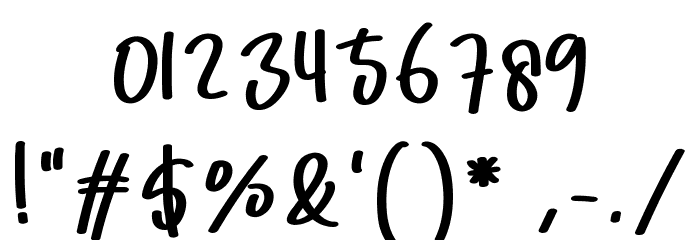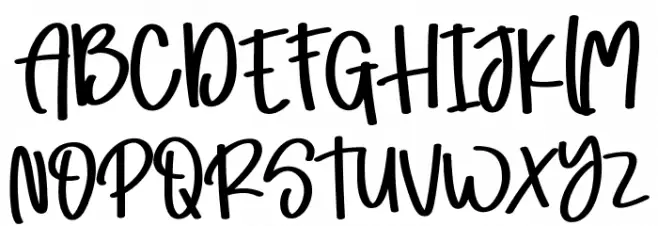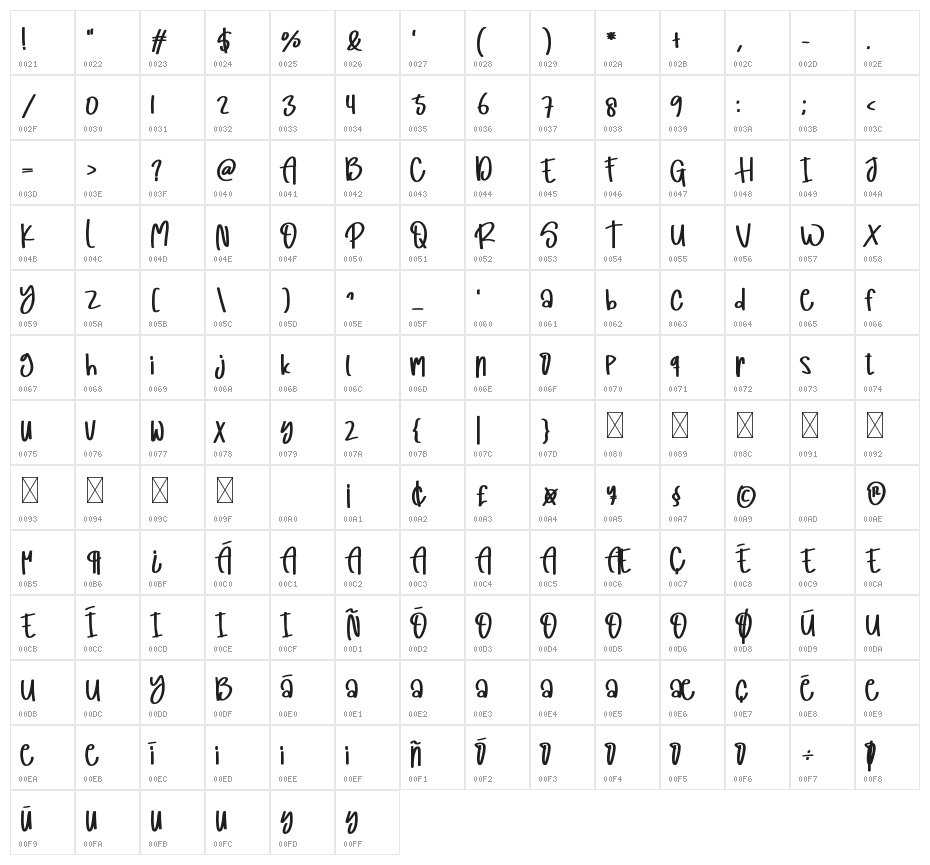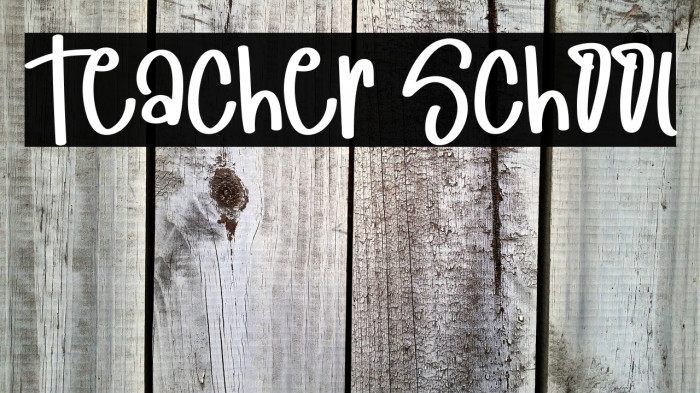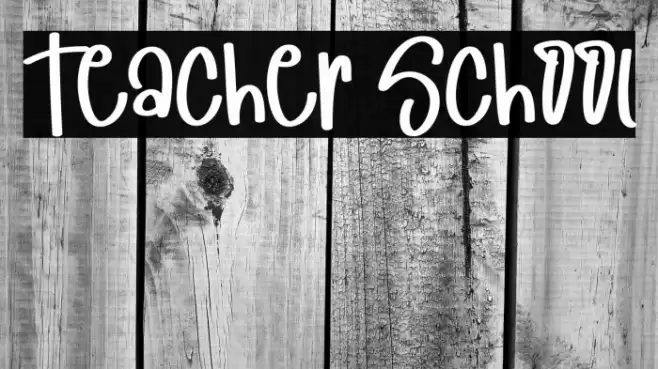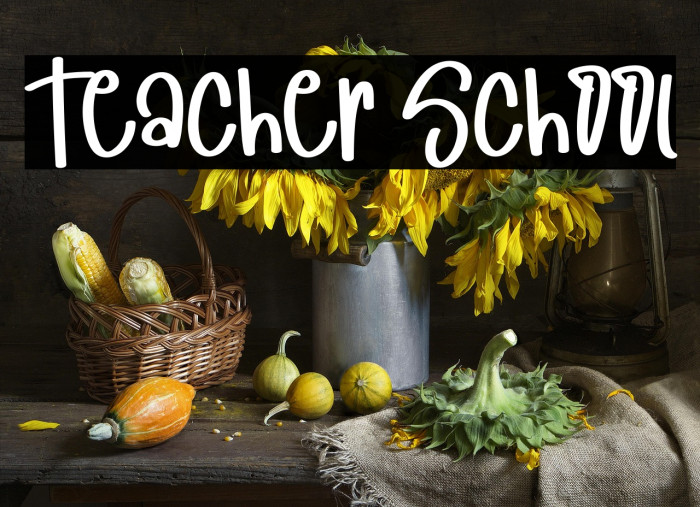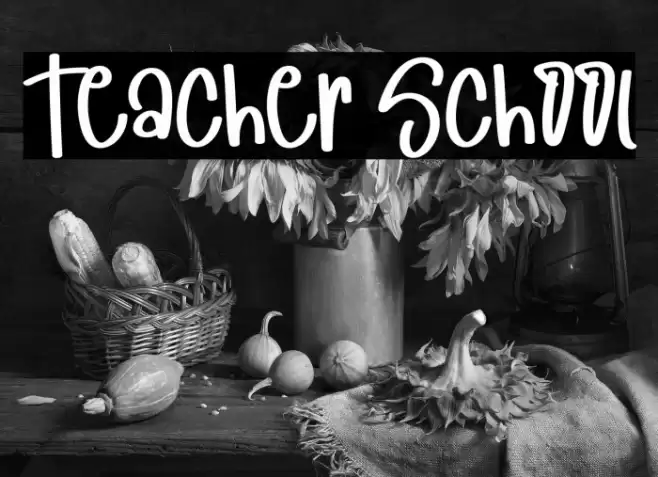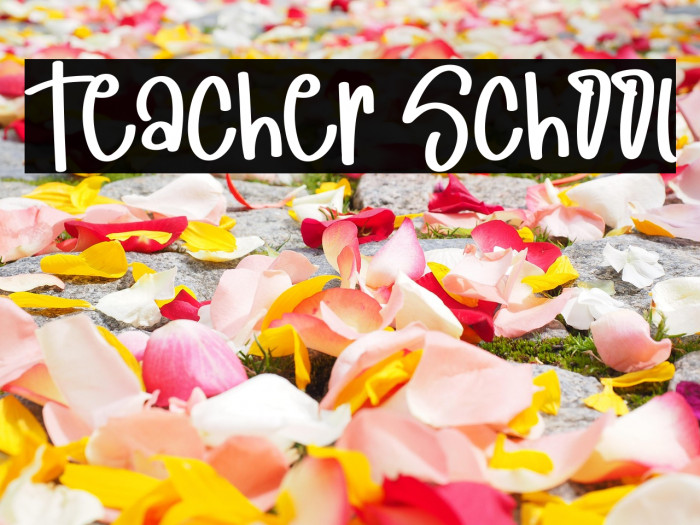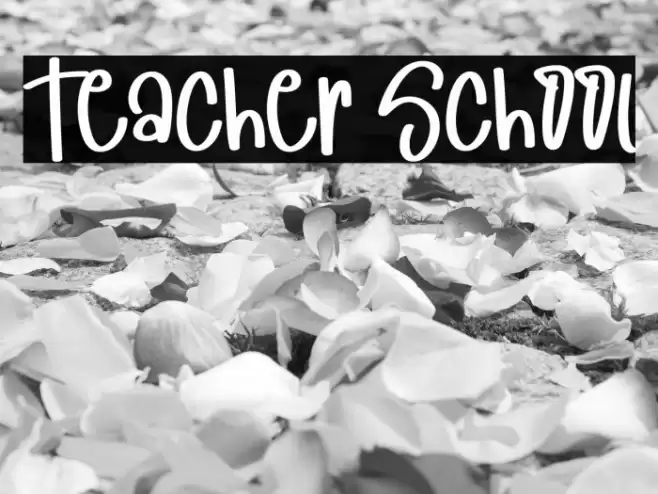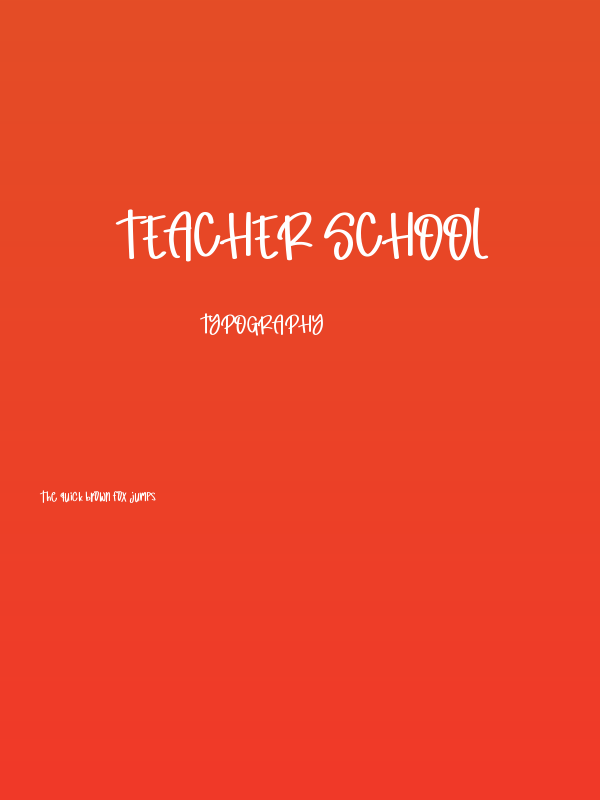
Teacher School Font
Teacher School Description
A playful, handwritten script font with tall, rounded letters and a casual, friendly appearance. The strokes are consistent in thickness, with a natural, slightly irregular flow that mimics real handwriting. The characters are upright with moderate spacing and a lively, informal style.
| Overall Style | Playful, Casual, Handwritten |
| Use Case | Headlines, Posters, Informal notes, Invitations |
| Proposed Projects | Classroom materials, greeting cards, posters, children's books, social media graphics. |